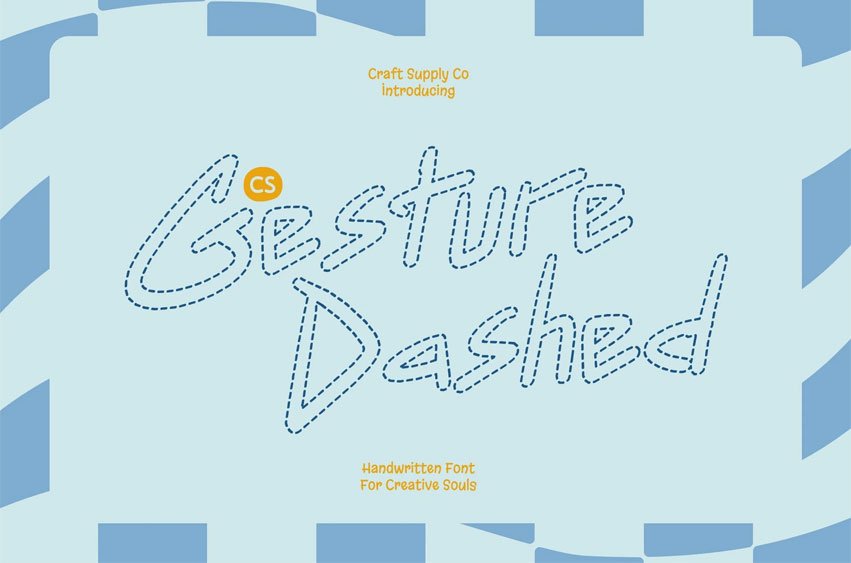
CS Gesture Dashed Font Handwritten Font with Natural, Expressive Flow Natural Handwriting with Airy Dashed Personality This is a handwritten display font created to emulate the organic movement of real pen strokes. Its soft, fluid shapes capture the spontaneity and warmth of human handwriting. What makes it distinctive is its dashed construction each stroke is formed by delicate, broken segments rather than solid continuous lines, creating a light and expressive visual texture that feels artistic and relaxed.
Smooth Segmented Letterforms for Style and Readability The letterforms maintain clarity and balance while introducing subtle dashed detailing that enhances visual interest. The segmented strokes create a rhythmic flow, mimicking the natural lift and motion of a pen. This combination ensures legibility while preserving personality, making it suitable for display text, short quotes, or expressive headlines that benefit from a handcrafted feel.
Warm, Authentic, and Creatively Relaxed The dashed effect softens the overall appearance, giving the font a friendly and approachable tone. It communicates creativity, care, and individuality without feeling overly decorative. The result is a style that feels intimate and genuine perfect for emotionally driven designs that seek a human connection.
Perfect for Branding, Quotes, Invitations, and Casual Designs This font shines in personal branding, inspirational quotes, casual invitations, lifestyle packaging, and social media graphics. Its expressive dashed strokes transform simple text into engaging, memorable typography bringing a natural, stylish, and authentically human touch to every project.